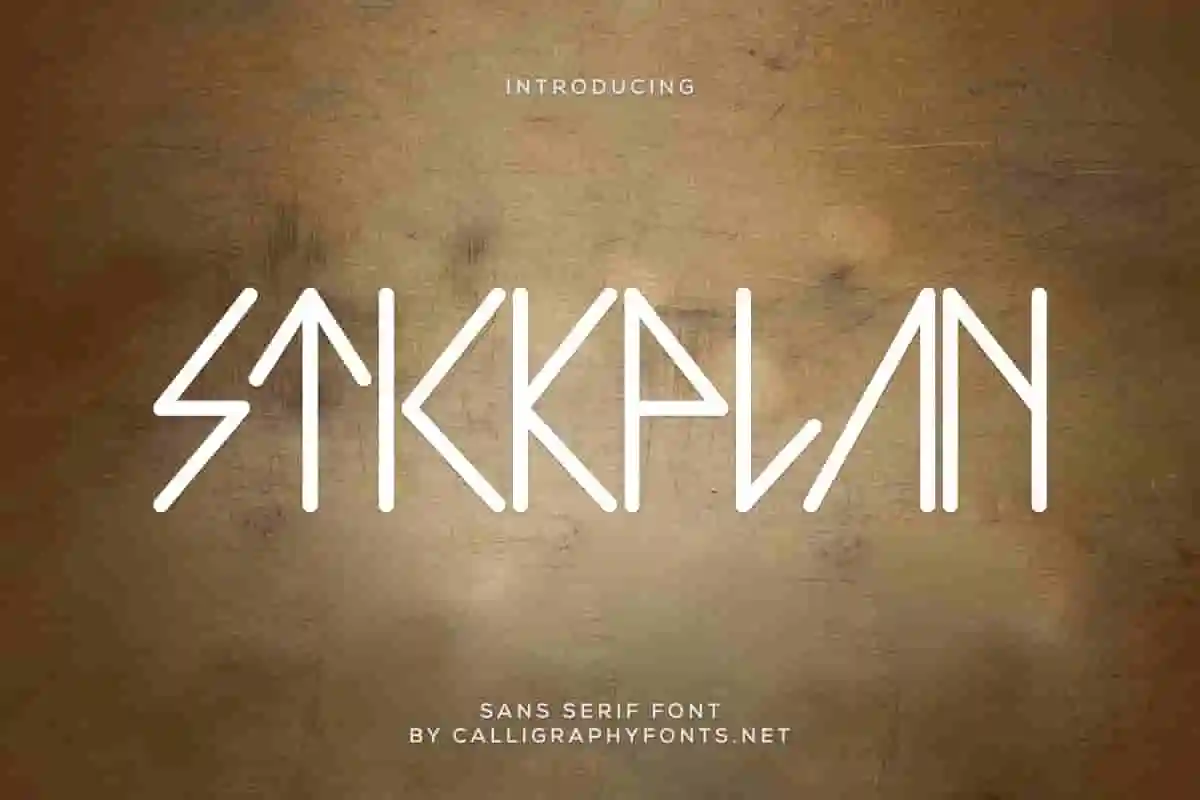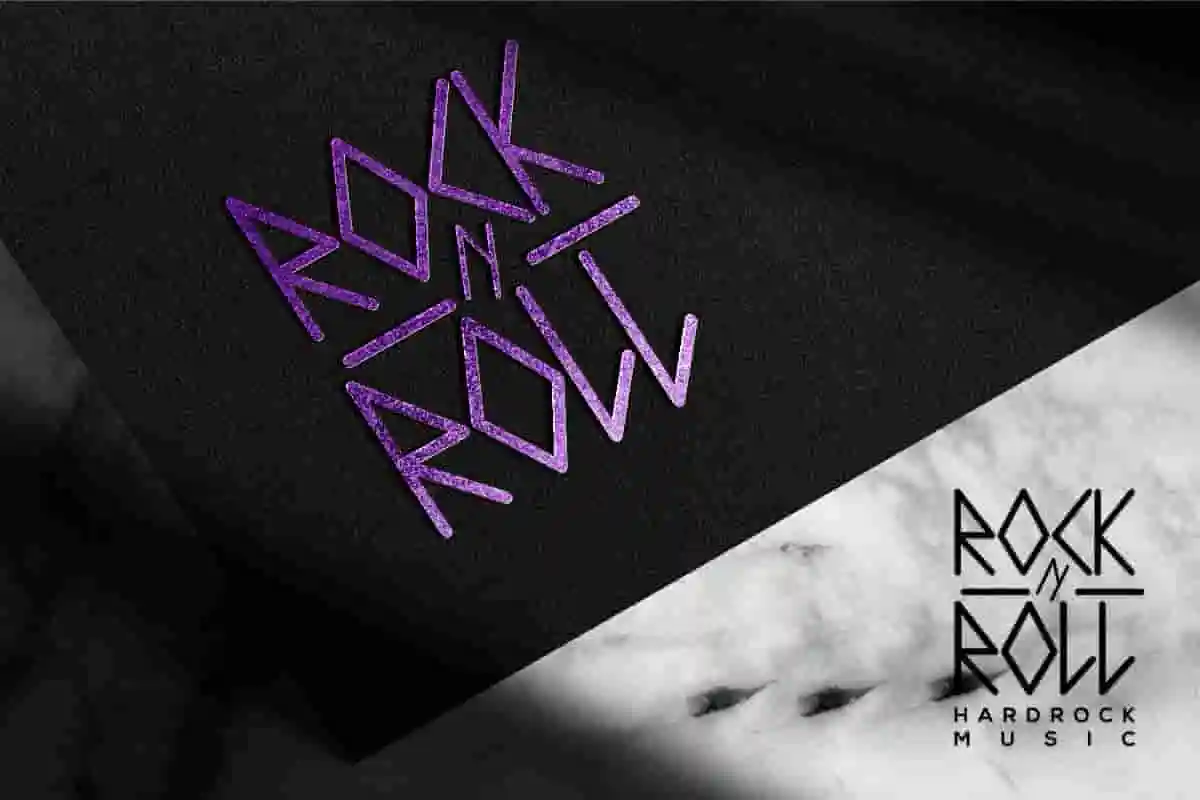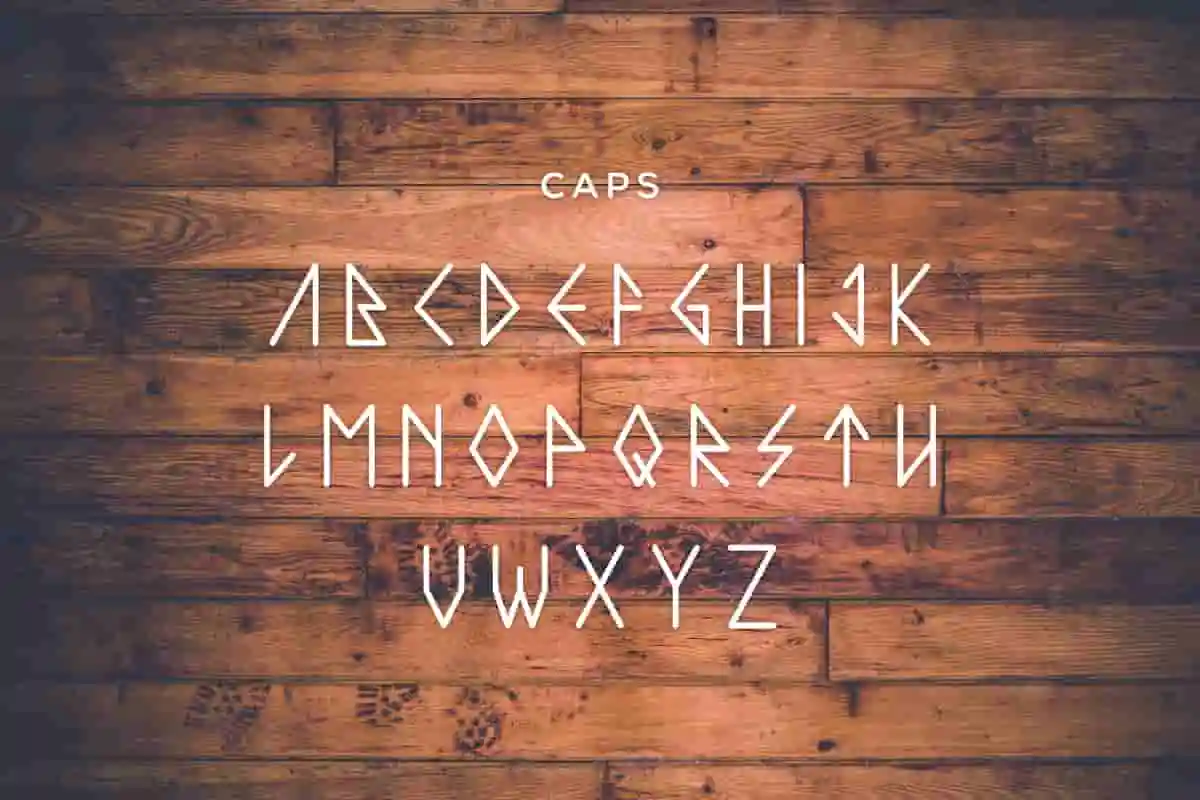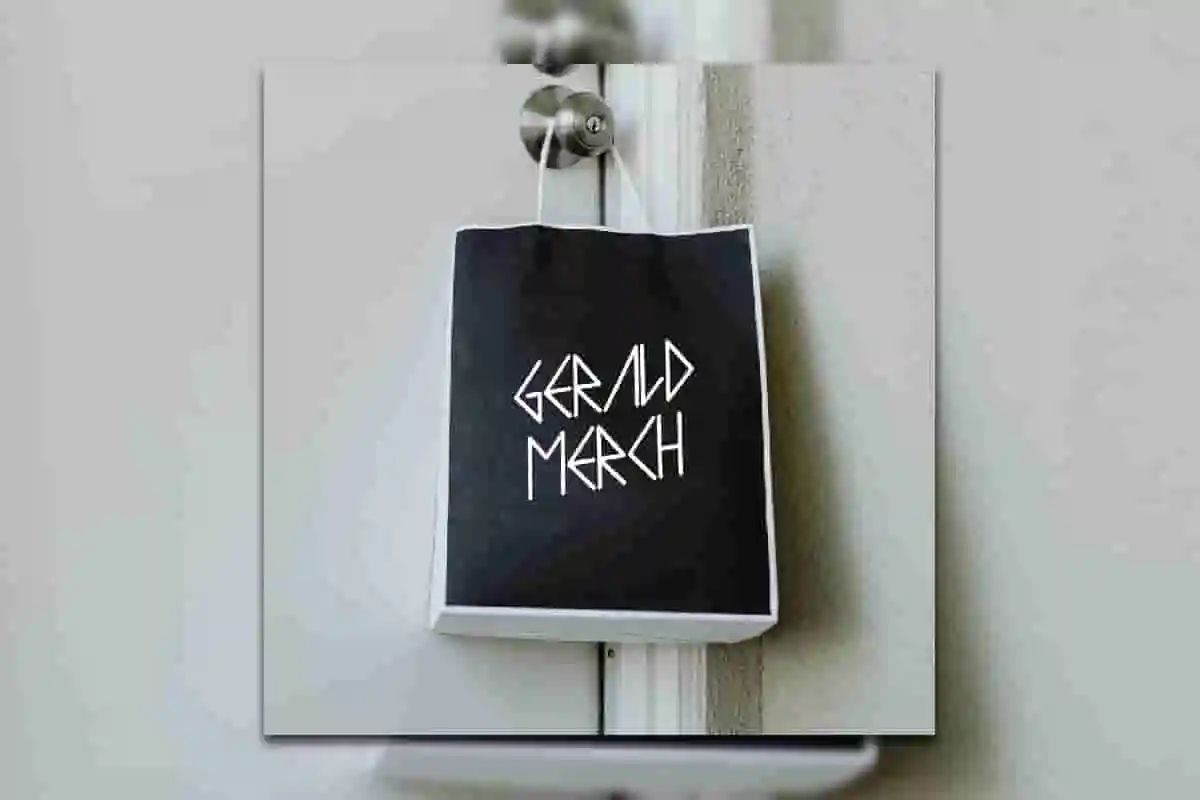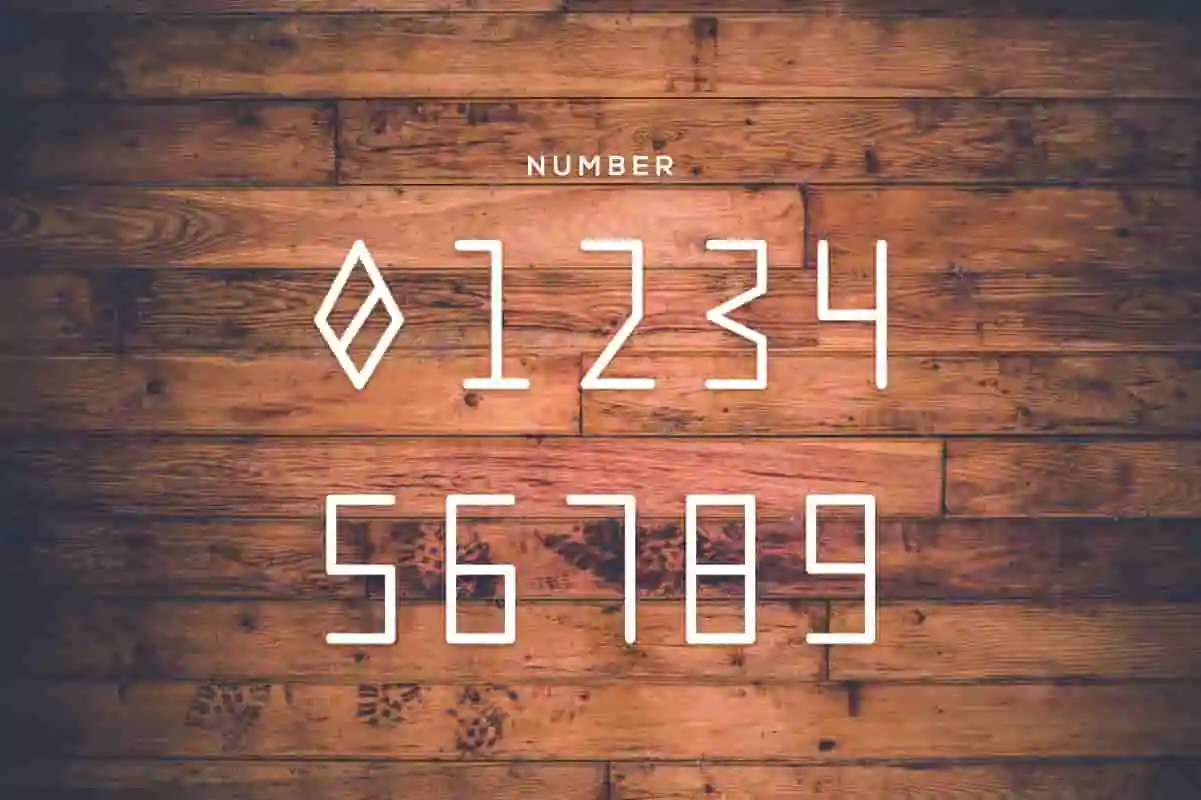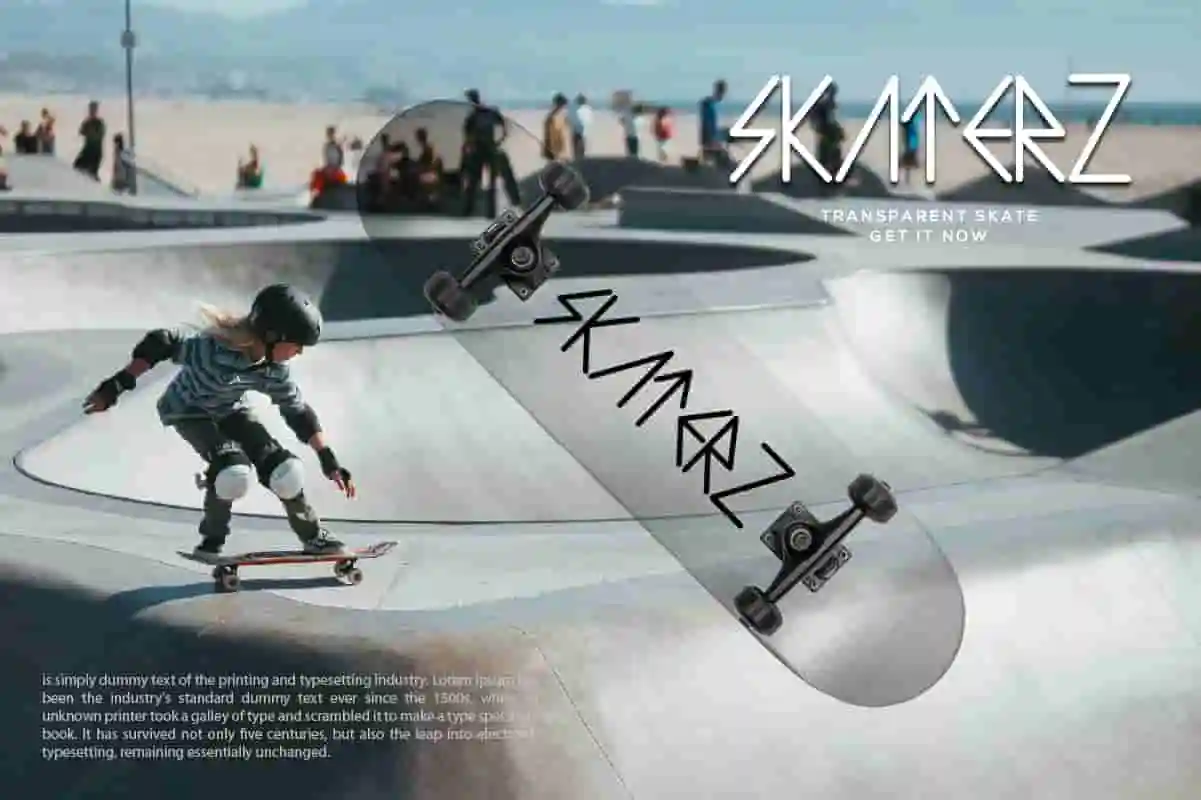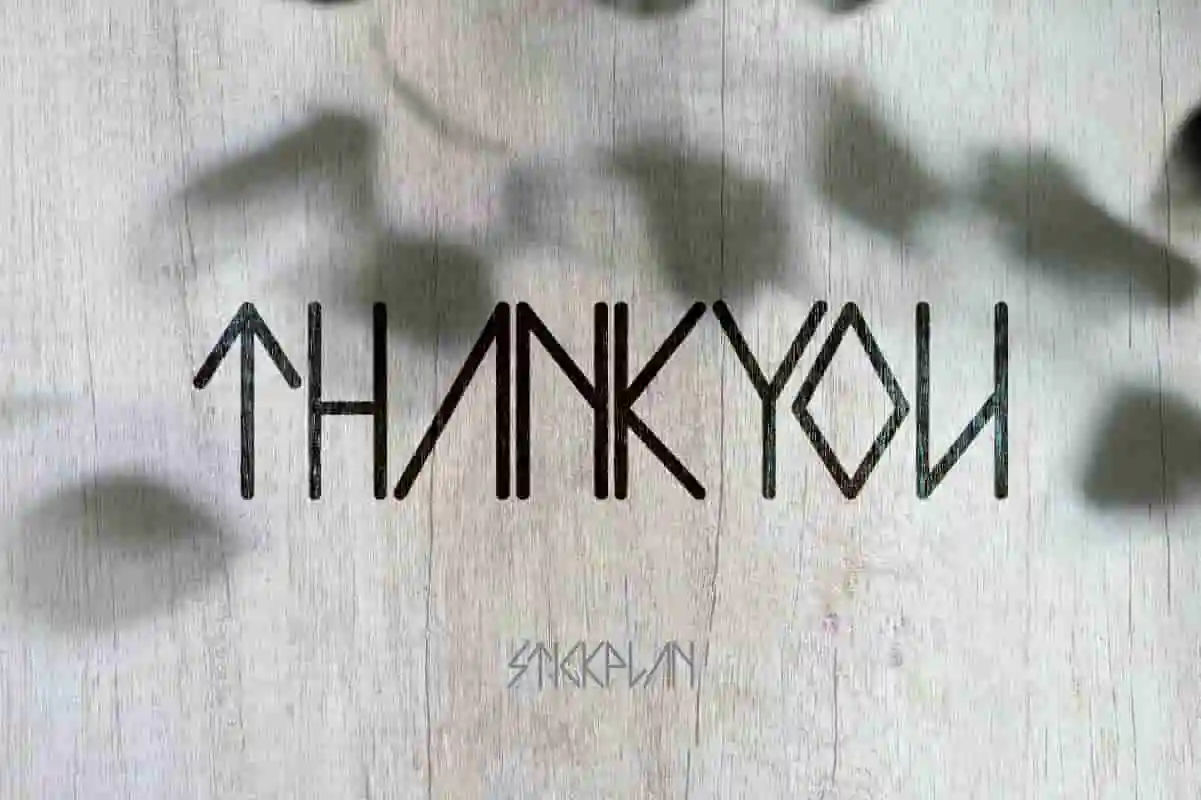
Stickplan Display Font
Stickplan Font is a fun display font by CalligraphyFonts.net. Stickplan Fontwill be Great for many purposes : games, apps, decorative and many more
Stickplan Font is a Display Font with fun weird style. The character of the font is fun, unique, futuristic and sophisticated. Stickplan font will be awesome for game, apps, website etc
Introducing Stickplan Display Font, a sharp, modern typeface designed to give your creative projects a bold and futuristic feel. With its clean angles, striking shapes, and standout structure, Stickplan is the perfect font for branding, logos, headlines, tech posters, and UI/UX design.
Stickplan was crafted for designers who want their message to be clear, powerful, and unforgettable. Its futuristic display style makes it ideal for digital themes, esports, modern advertising, or minimalist packaging.
Whether you’re building a tech brand, designing a gaming logo, or creating bold promotional content, Stickplan Display Font offers the modern edge you need. Its confident form gives each letter presence, while maintaining readability and aesthetic flow.